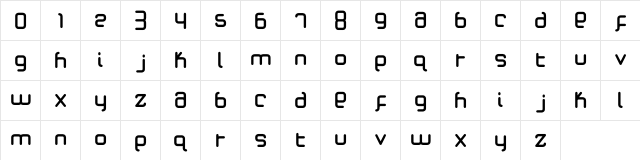
Total Millenial Regular
| Designer | Akhmad Afandhi |
Design Context for Total Millenial Typeface
Total Millenial is a composed and adaptable typeface that performs quietly and consistently across a wide range of design contexts.